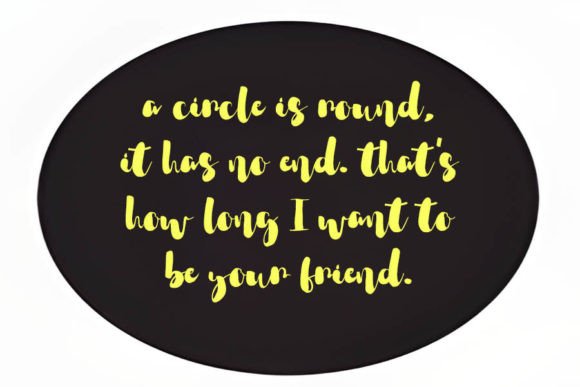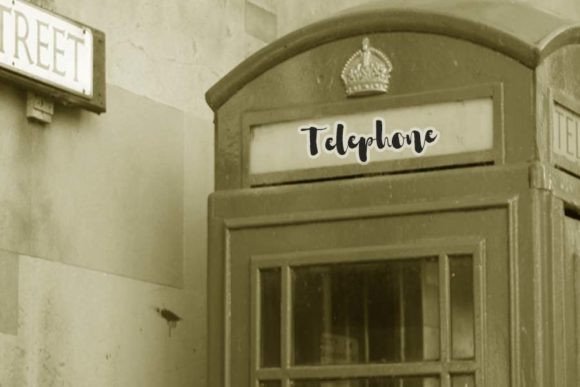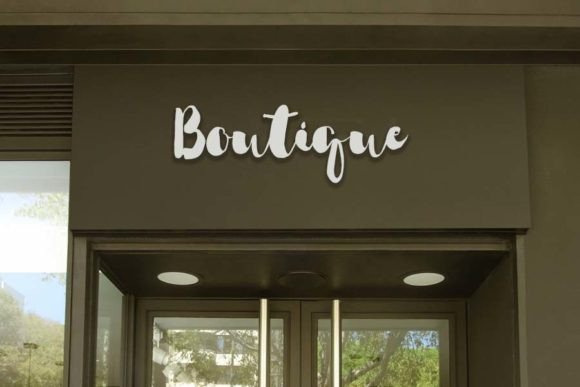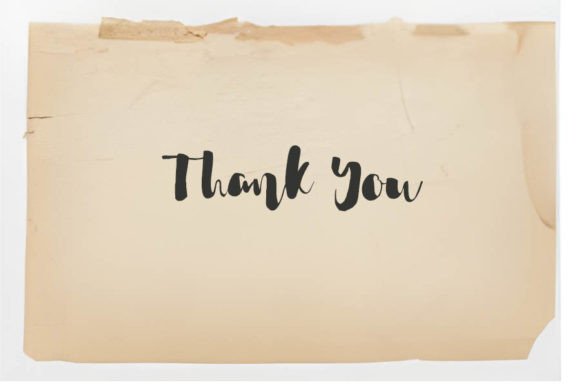
The Ultimate Friendship Font: A Designer’s New Best Friend
I’ll never forget the time I was working on a project for a client who wanted a custom invitation for a milestone birthday party. I had all the design elements ready – the colors, the graphics, the overall aesthetic – but I was stuck on one thing: the font. I scrolled through my font library, but nothing seemed quite right. That’s when I stumbled upon the Friendship Font, and it was love at first sight! 💕
Friendship is an incredibly unique handwritten font that has quickly become a favorite in my design toolkit. Masterfully designed to bring each of your creative ideas to the highest level, this font has a way of making your designs feel personal, approachable, and downright charming.
So, what makes the Friendship Font so special? Let’s dive into the details! 🎉
- ✨ Unique and quirky character set that adds a touch of personality to any design
- ✅ Beautifully crafted letterforms with a perfect balance of elegance and playfulness
- 🎉 Extensive range of OpenType features, including glyphs and stylistic alternates
- 💻 Highly legible, even at smaller font sizes
- 🤔 Some users may find the font a tad too ornate for very formal or traditional designs
- ⚠️ Limited availability of condensed or italic versions (but who needs them when the regular font is this gorgeous?)
The Story Behind Friendship Font
According to the font’s creators, Friendship was inspired by the joy of human connection and the beauty of handwritten letters. The goal was to craft a font that would bring people together and make designs feel more personal and approachable. And judging by the font’s popularity, it’s clear that they’ve succeeded!
| Font Name | Friendship Font |
| Author | Leontyn Art |
Q: Is the Friendship Font suitable for body text?
A: While the Friendship Font is beautiful, it’s best suited for headlines, titles, and short paragraphs. For longer body text, you may want to choose a more traditional font for readability.